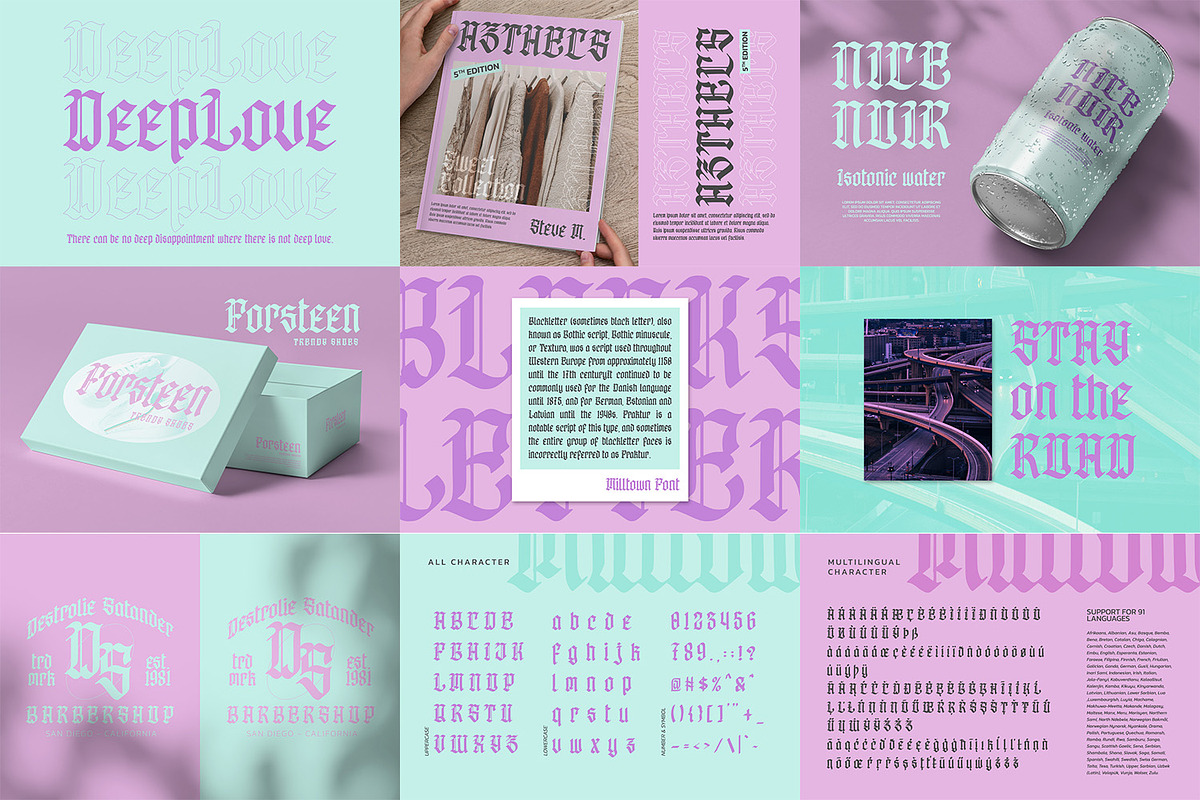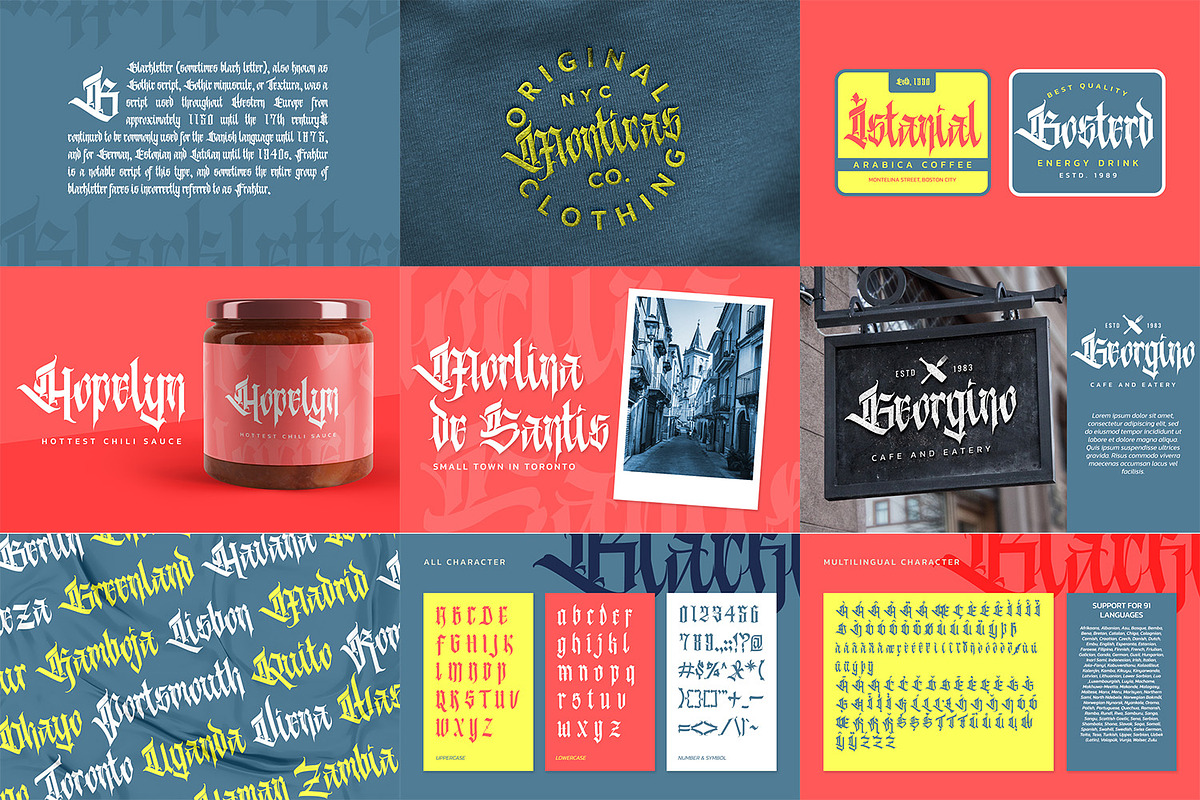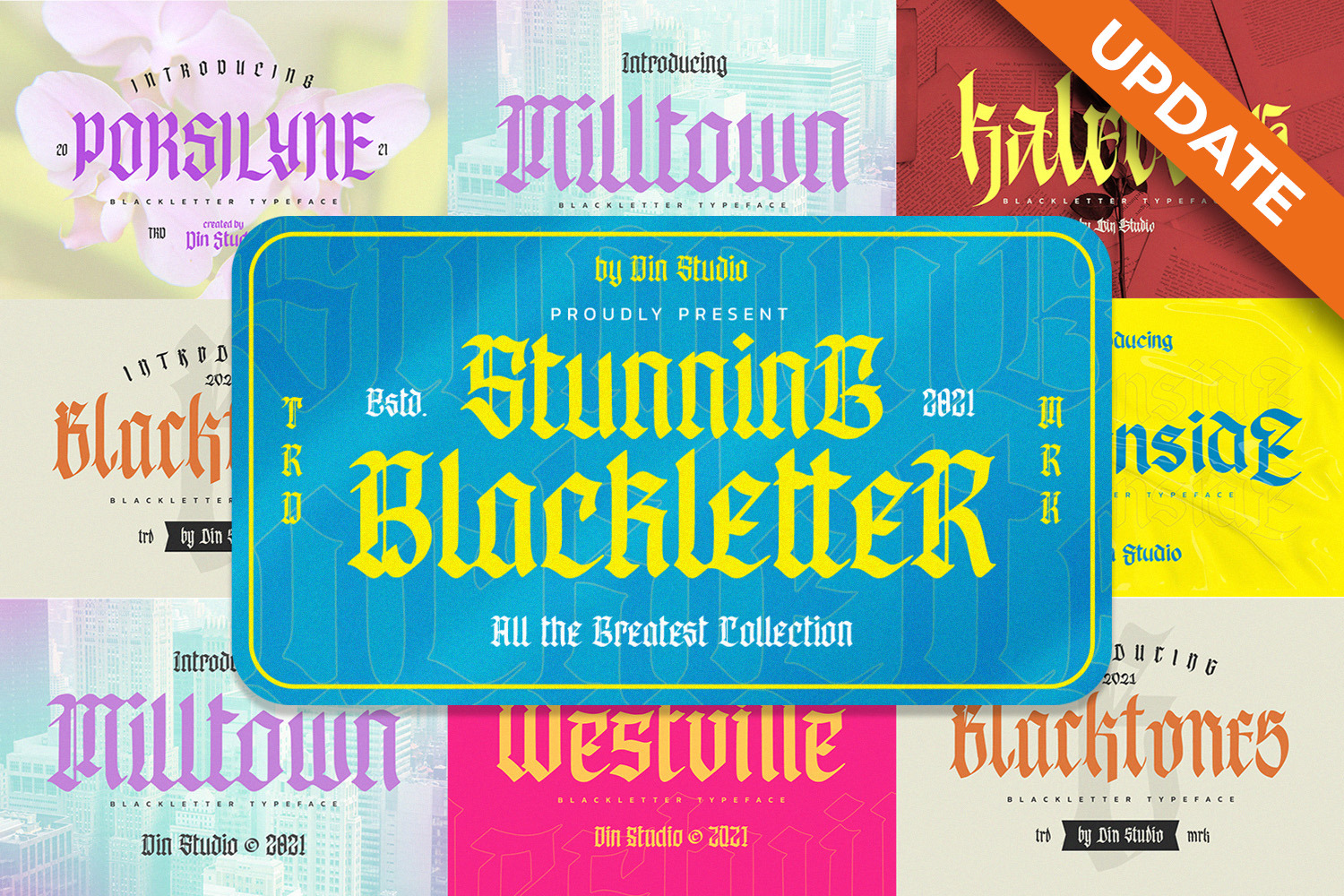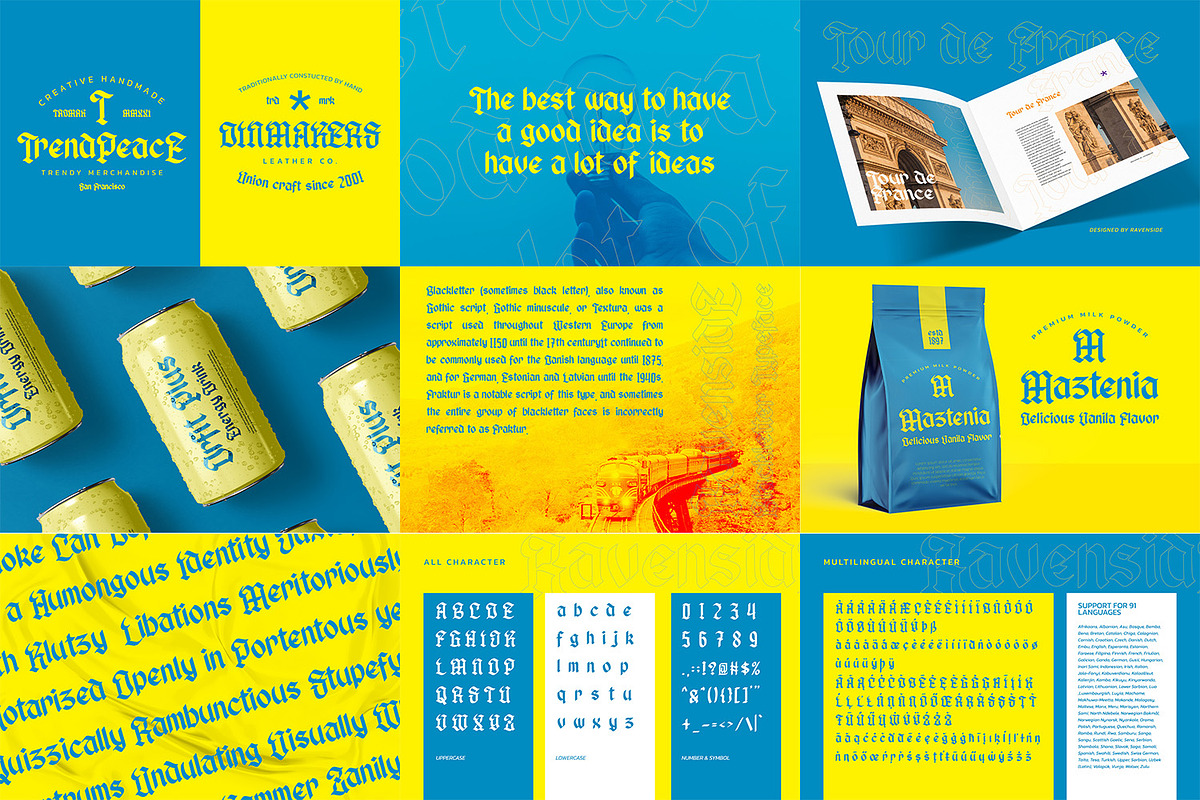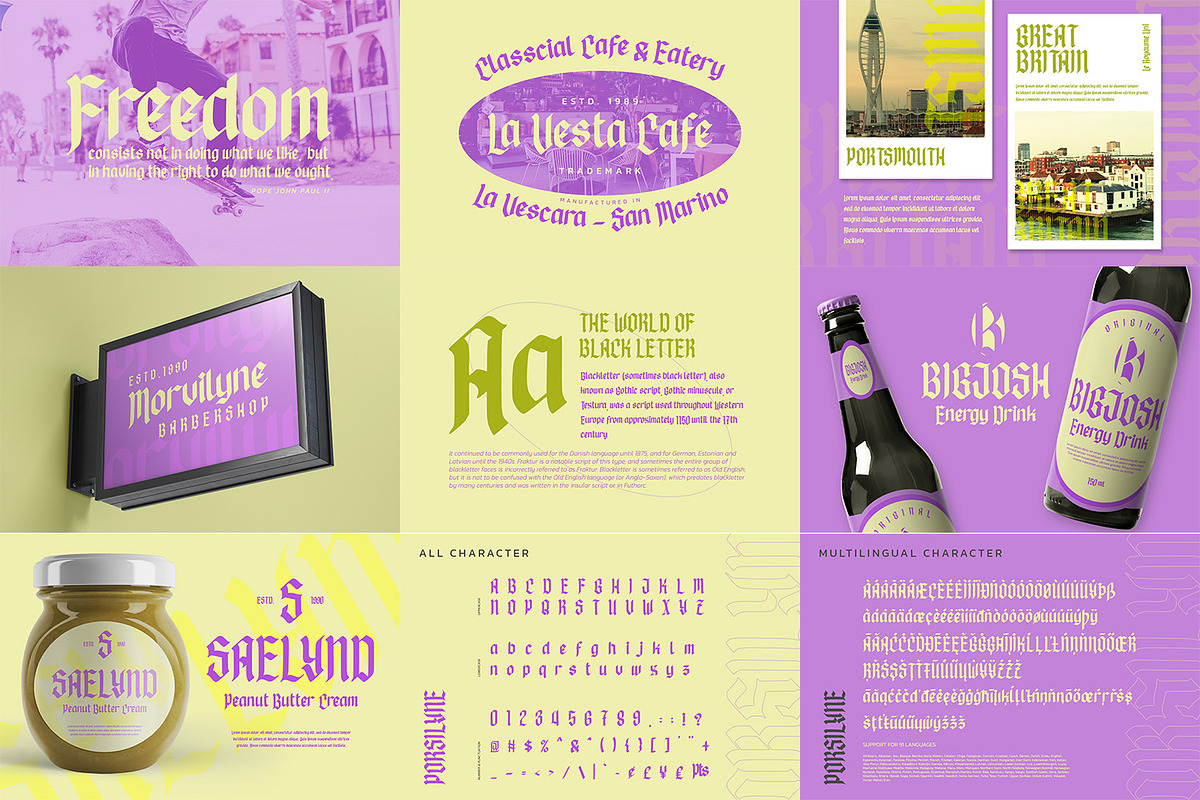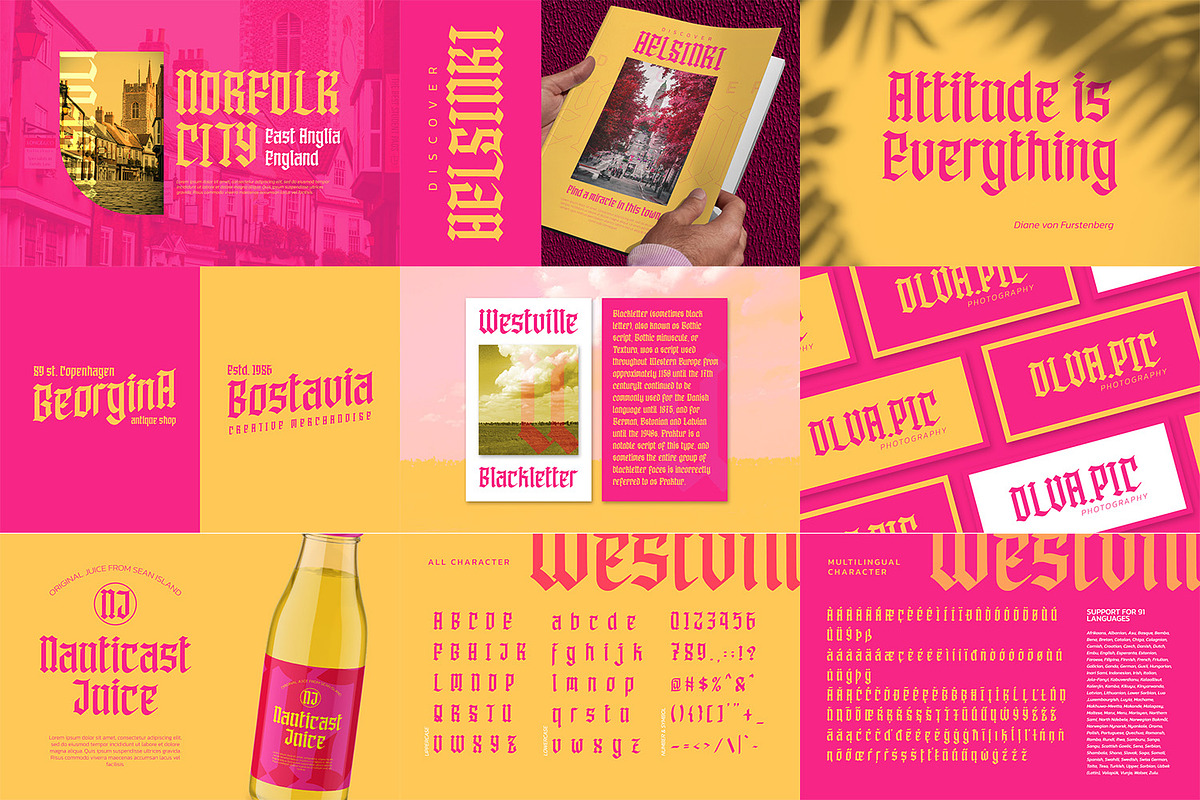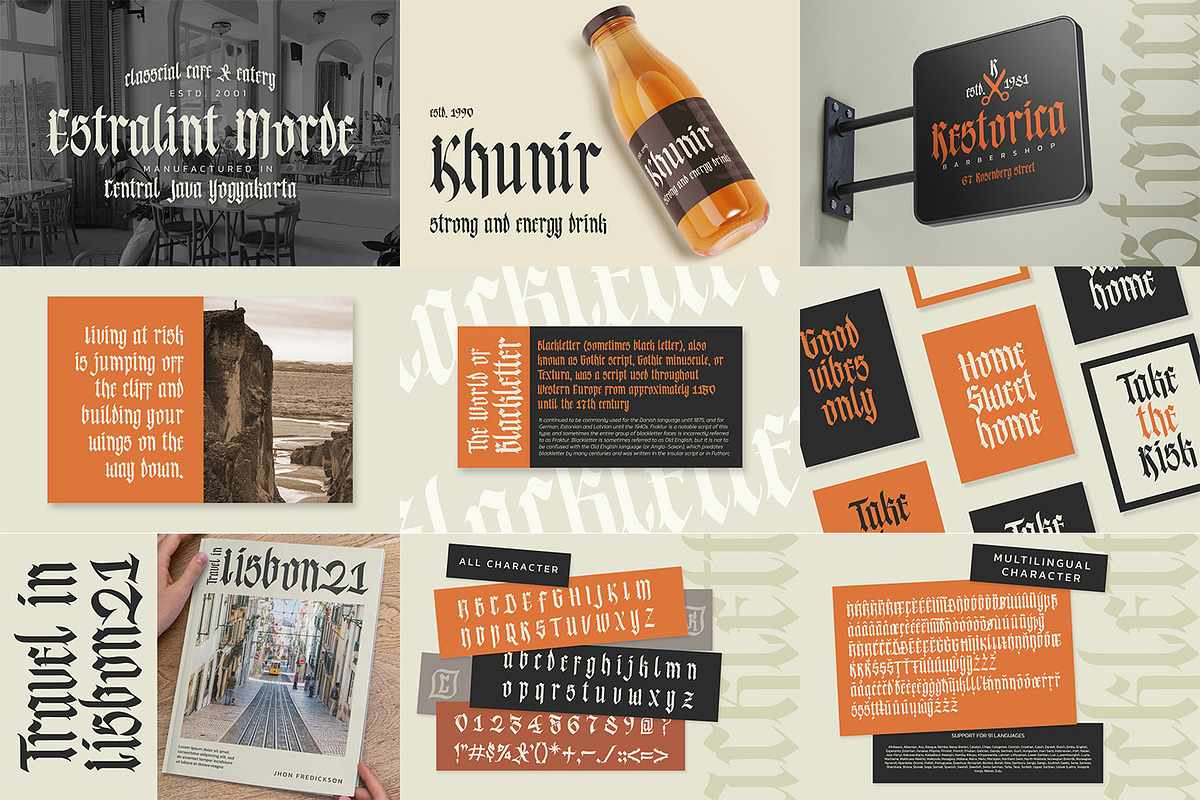
Stunning Blackletter Bundle Font
Hello, everyone! Introducing Stunning Blackletter Bundle Font
This bundle consists of 6 blackletter fonts. The vintage touch will make your design look bold and classic. It is designed to be easy on eyes. The bundle is suitable for many design projects, such as poster, logo, book cover, branding, heading, printed product, merchandise, quotes, social media campaign, and so much more!
Stunning Blackletter Bundle Font includes Multilingual Support. See the previews above to get some inspiration on how you can use them.